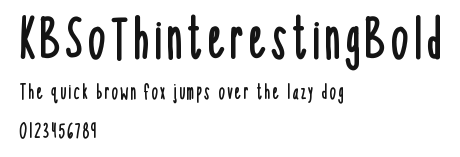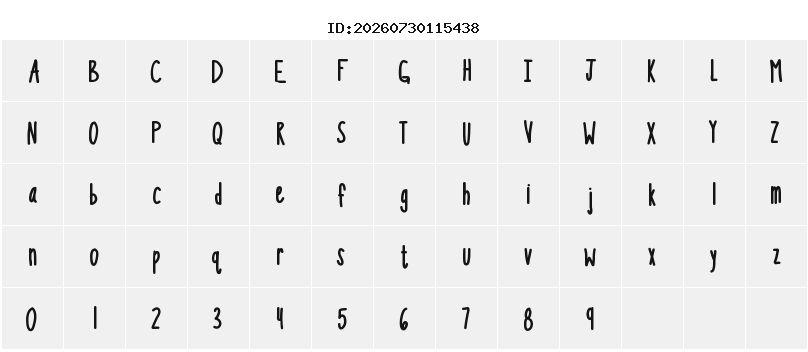
KBSoThinterestingBold Preview
• Font Name: KBSoThinterestingBold
• Font Style: ThinterestingBold
• Font ID: KhrysBosland:KBSoThinterestingBold
• Full Font Name: KBSoThinterestingBold
• PostScript Name: KBSoThinterestingBold
About KBSoThinterestingBold.ttf
KBSoThinterestingBold.ttf is a modern, elegant sans-serif font designed for ultimate readability and visual harmony. Perfect for branding, headlines, web design, and print materials.